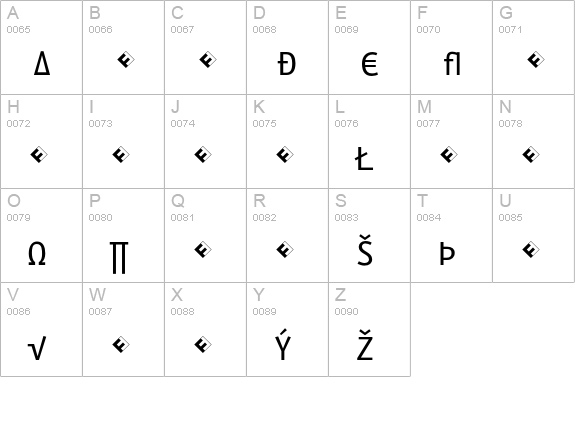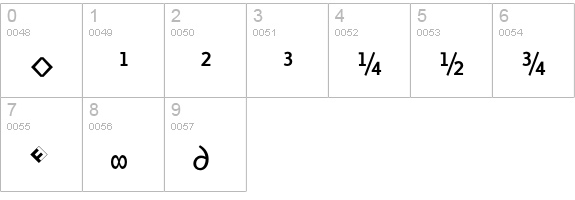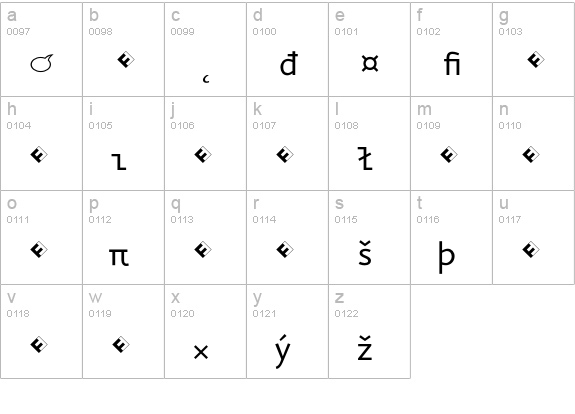
Eureka Mono Exp Font Details
Eureka Mono Exp font is a modern and stylish typeface that exudes a sense of sophistication and elegance. Its sleek and streamlined design makes it perfect for a wide range of design projects, from branding to editorial layouts. The monospaced characters provide a clean and organized look, ideal for coding and programming applications. What makes Eureka Mono Exp font even more appealing is that it is available for free download at FontsMarket.com. This means you can easily access this high-quality font without any cost, making it a valuable addition to your font library. Don't miss out on the opportunity to enhance your designs with the versatile and sophisticated Eureka Mono Exp font today!